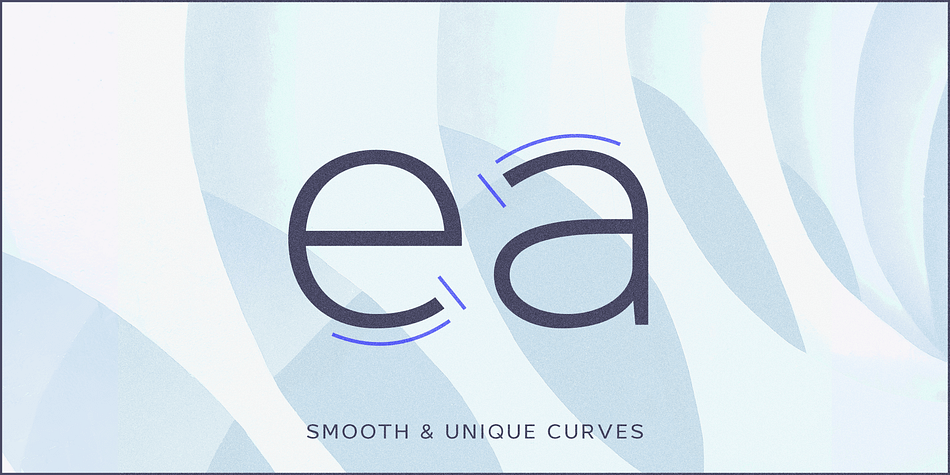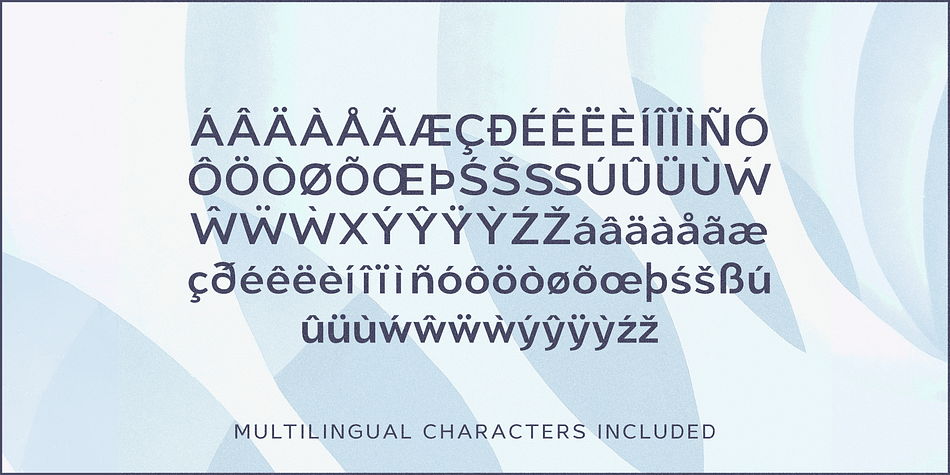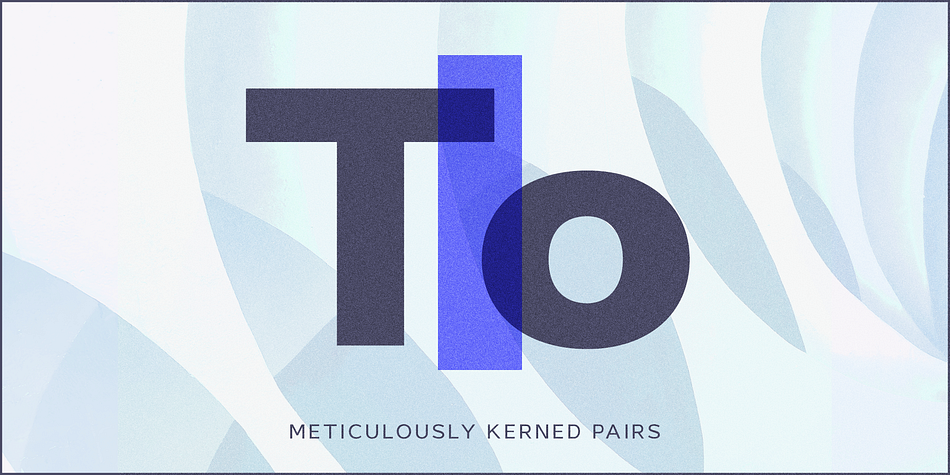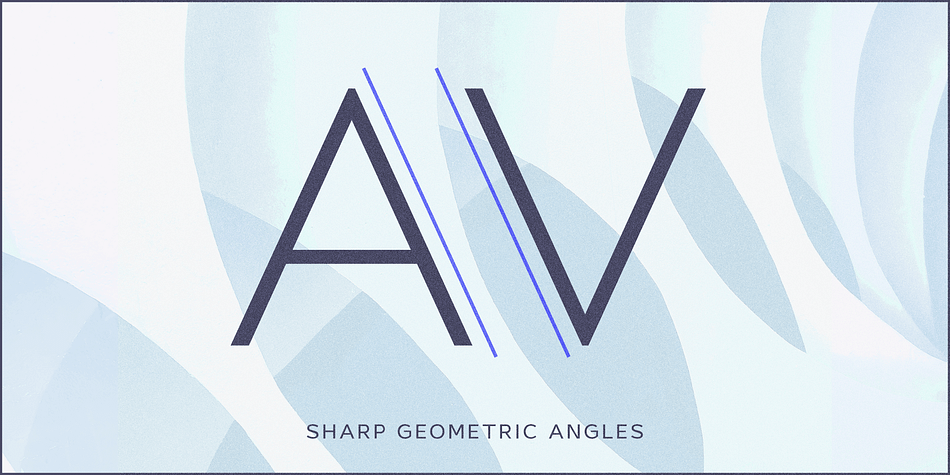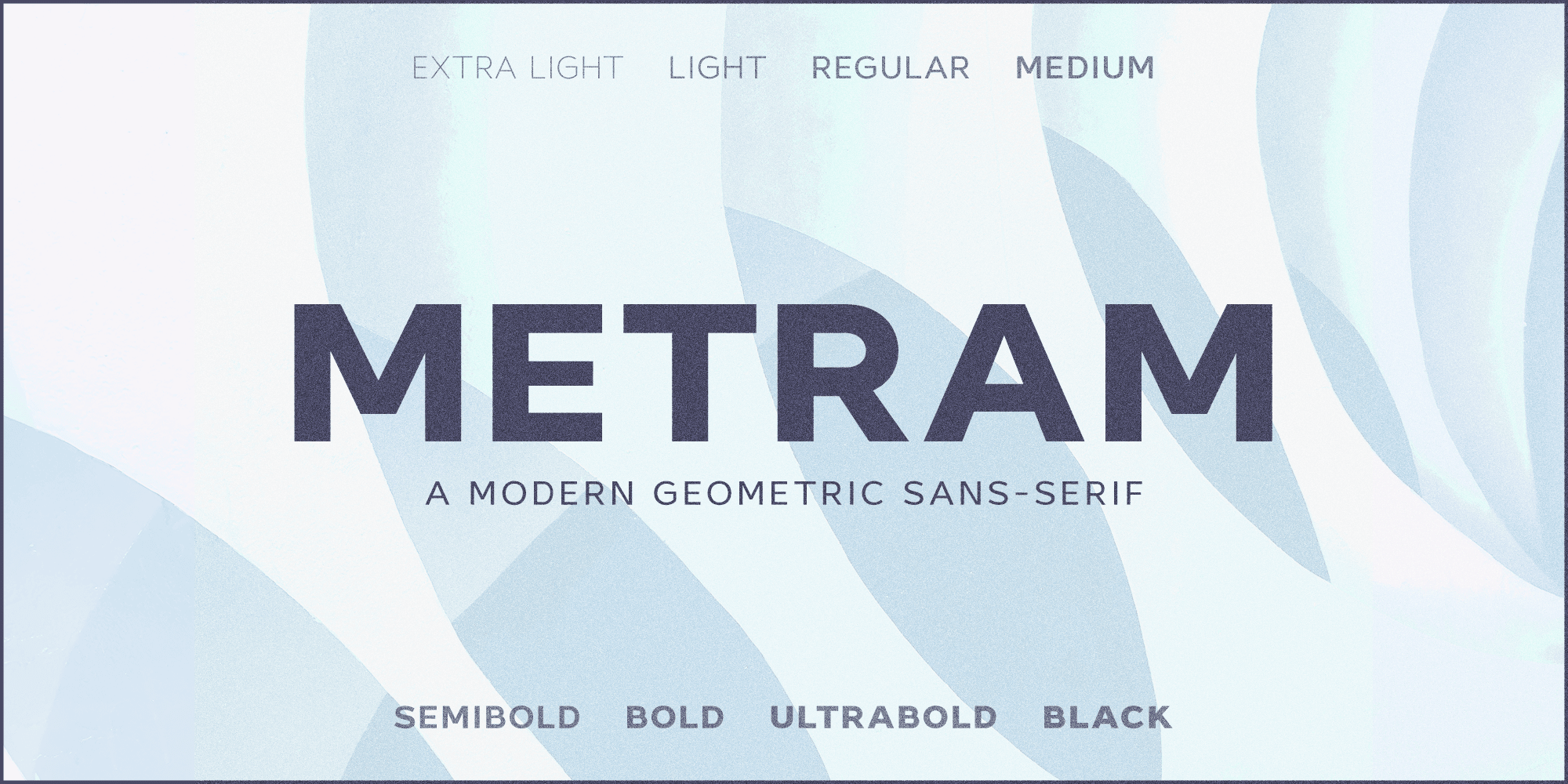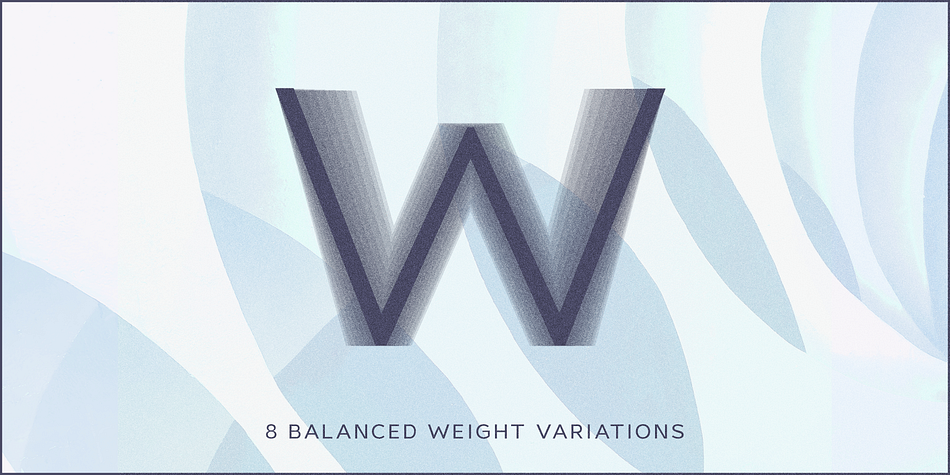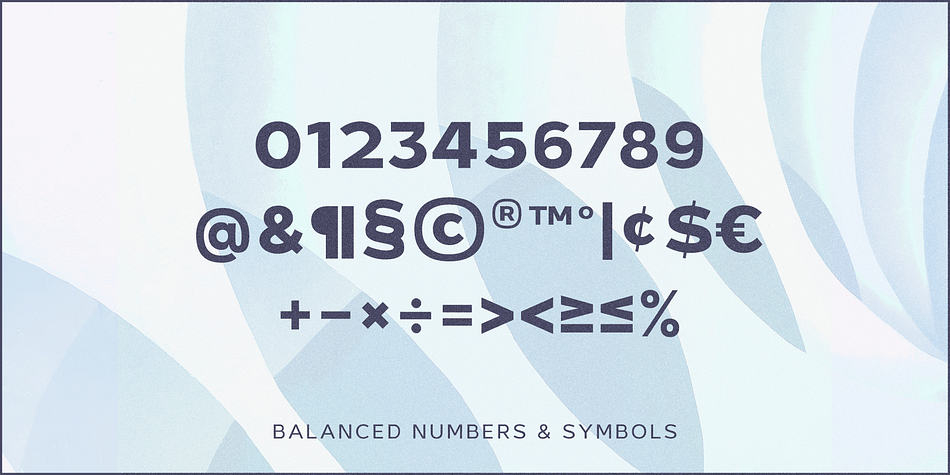
Metram
Metram is a sans serif font family. This typeface has eight styles and was published by Parker Creative.
Metram is a sleek and modern geometric sans serif font that draws inspiration from popular typefaces like Futura, Gotham, and Proxima Nova. With its own unique flair and minimalistic design qualities, Metram is the perfect choice for those looking to achieve a clean and contemporary look across a variety of mediums.
Featuring sharp angles and smooth mathematical curves, Metram’s meticulous balance creates a super clean and eye-catching aesthetic. With a choice of eight different font weights, this versatile typeface is ideal for demanding design applications like websites, logos, mockups, apps, ads, and more.
But that’s not all – Metram also includes desktop and webfont formats (OTF, TTF, and WOFF), extended Western European latin characters, and a balanced number and symbol set. With all these features, Metram is sure to impress and help you achieve your design goals with ease.